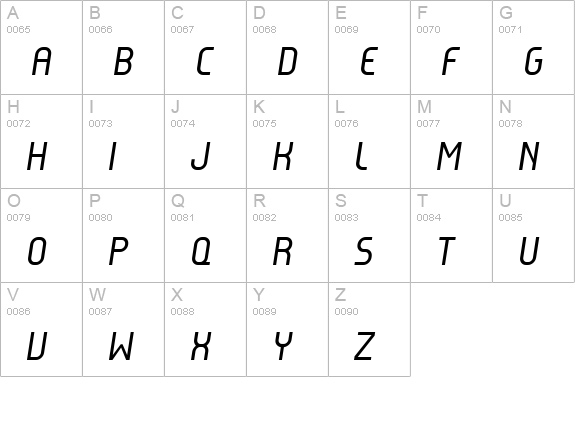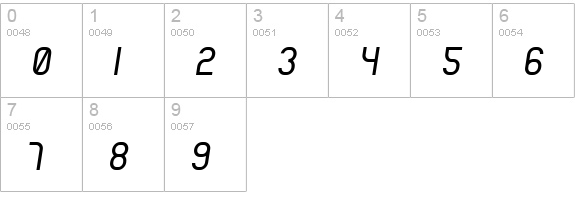
Reflex Italic Font Details
Reflex Italic is a distinctive, italic variant in the Reflex typeface family \xE2\x80\x94 well suited to design and typography projects.
Reflex Italic font is a stunning creation that embodies elegance and sophistication. Its sleek and modern design combined with a touch of calligraphic inspiration make it a perfect choice for any project that requires a touch of finesse. The italic slant adds a dynamic and captivating flair to the overall look, making it a standout choice among other fonts. This font is not only visually appealing but also highly versatile. It can be used for a variety of purposes, ranging from logo designs, branding materials, to invitations and editorial layouts. Its timeless appeal ensures that it will remain a classic choice for years to come. One of the best things about Reflex Italic font is that it is available for free. Yes, you read that right – this exquisite font can be freely downloaded at FontsMarket.com. This means that you can enhance your designs with this beautiful font without having to worry about any additional costs. With Reflex Italic font, you can effortlessly elevate your projects and make them stand out from the crowd. Its subtle elegance and impeccable craftsmanship will leave a lasting impression on your audience, making it a valuable asset in your font collection. So why wait? Download Reflex Italic font today and let your creativity soar to new heights.